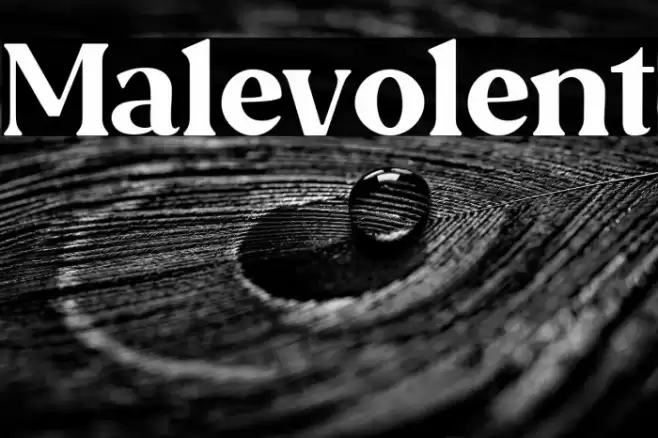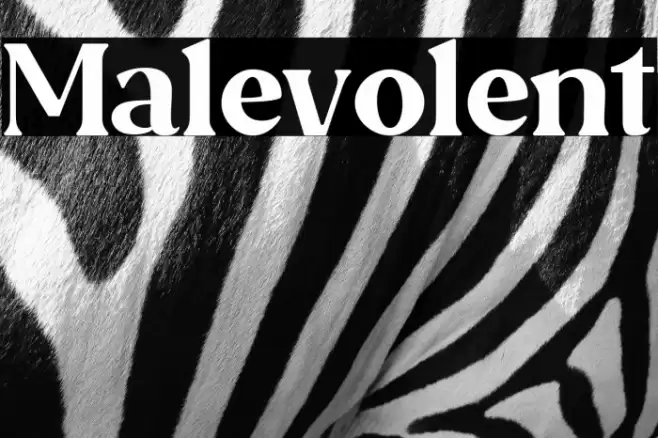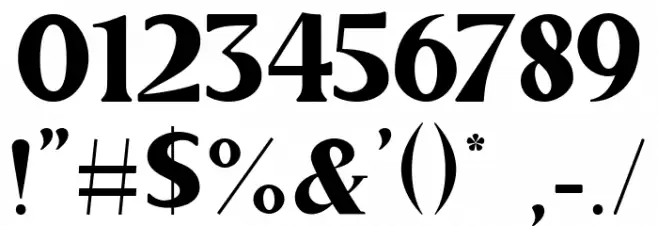
Malevolent Font
Malevolent Description
This font features a bold and dramatic serif style with high contrast between thick and thin strokes, giving it a strong and authoritative presence. The serifs are pronounced and slightly curved, adding a touch of elegance and sophistication. The uppercase letters are tall and commanding, while the lowercase letters maintain a consistent and balanced appearance. The numbers are clear and distinct, with a classic feel. Special characters are well-integrated, maintaining the overall aesthetic of the font. This typeface is suitable for making a bold statement in any design project.
A bold, high-contrast serif font with elegant curves and strong presence from Regular fonts.
- Proposed Projects: Ideal for headlines, book covers, posters, and branding materials that require a strong and sophisticated look.
- Overall Style: Classic